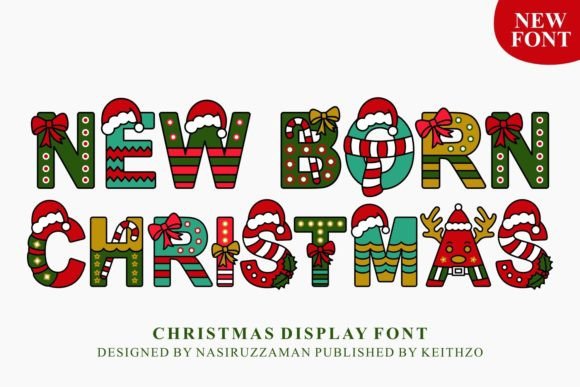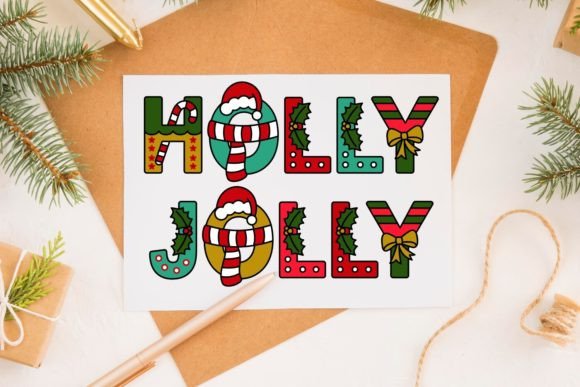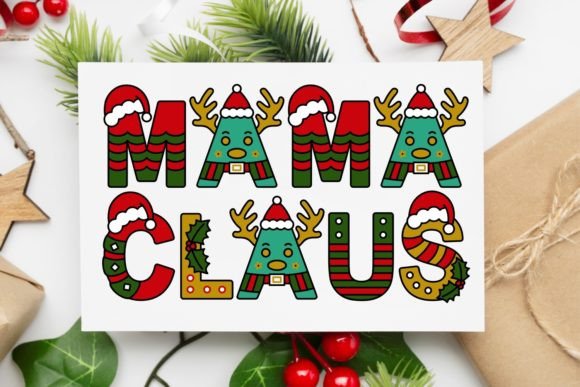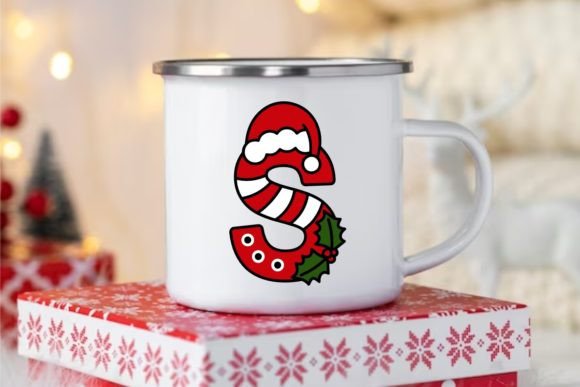
New Born Christmas Font
About the New Born Christmas Font
Elevate your designs with New Born Christmas Font, a font that combines sophistication with readability. Meet “New Born Christmas,” the perfect font to infuse your holiday projects with adorable festive charm. This cute decoration Christmas font brings a playful and jolly spirit to your designs, making it ideal for holiday cards, gift tags, and seasonal decorations. With whimsical details and a touch of festive magic, New Born Christmas adds a delightful flair to your Christmas-themed creations. Embrace the joy of the season with this charming and heartwarming font.
New Born Christmas’s playful, rounded forms work best in headlines, short text blocks on packaging, or as a decorative element in festive designs. It’s ideal for projects targeting children or conveying a youthful, lighthearted brand identity, such as children’s books, holiday invitations, or sweet treat branding. Avoid using it for body text or long paragraphs; its whimsical nature makes extended reading difficult.
Pairing it with a clean sans-serif like Open Sans for body copy provides excellent contrast and readability. For a more sophisticated touch, consider pairing it with a classic serif like Garamond for a formal yet festive feel. A script font such as Great Vibes could add a touch of handwritten charm to enhance the overall holiday cheer.
The font’s core personality is undeniably cheerful and whimsical, embodying a sense of childlike wonder and holiday joy. Its charm makes it perfect for projects needing a touch of lighthearted festive spirit but not suitable for applications requiring sophistication or seriousness.